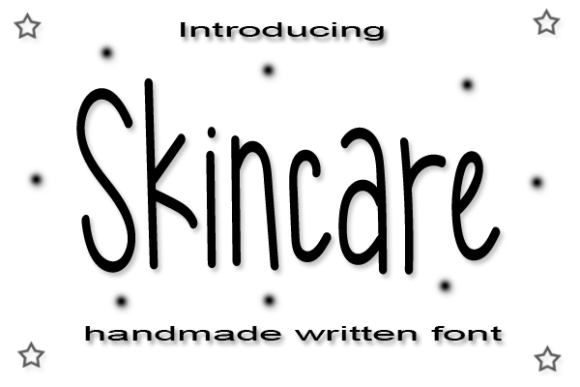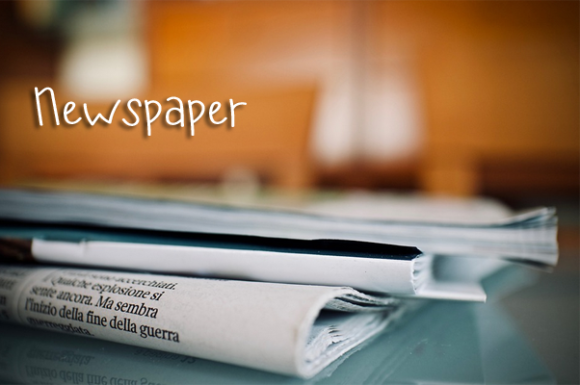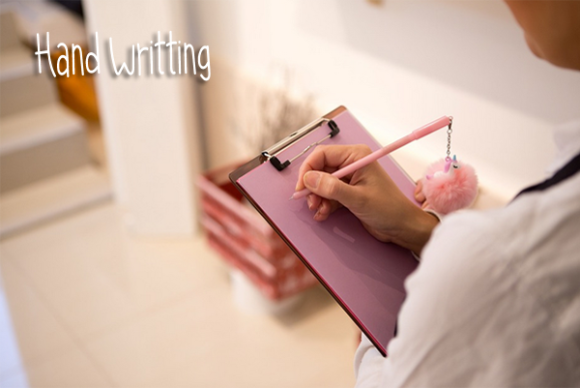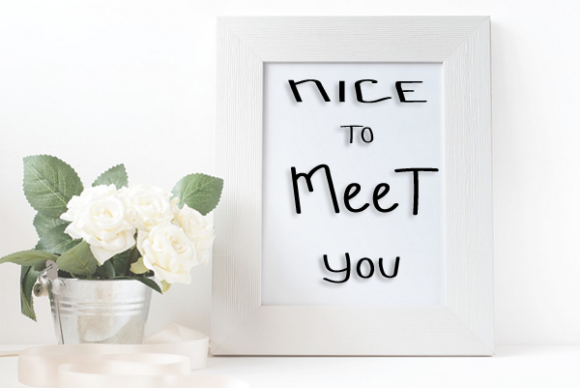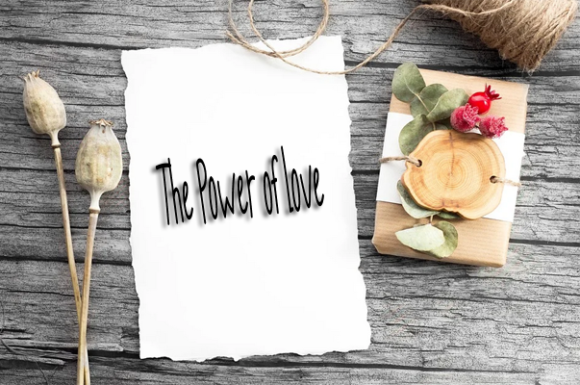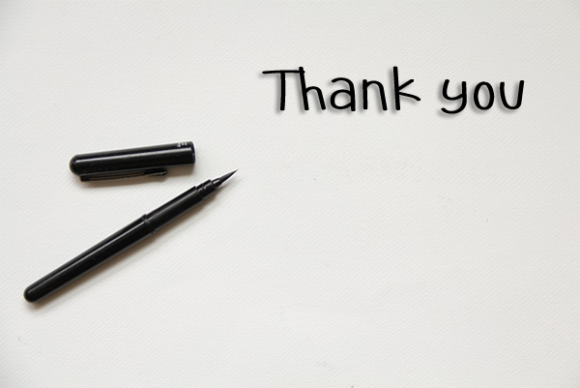
Skincare Font
About Skincare Font
SkincareĀ is a cute and simple lettered handwritten font that can be used for all chalkboard quotes or teaching material! Its authentic look will add a personal and realistic feel to your designs.